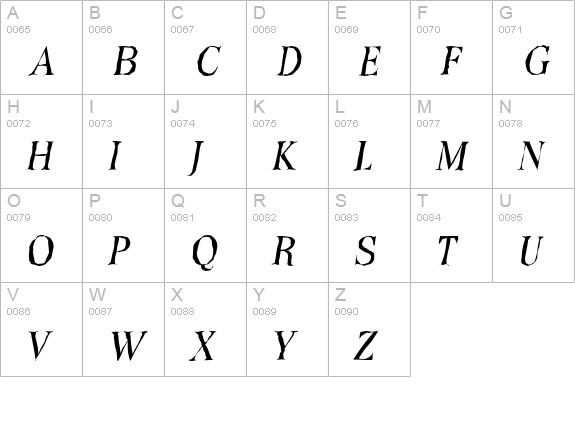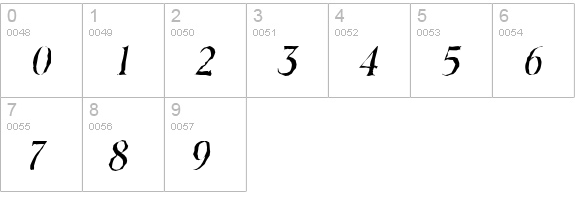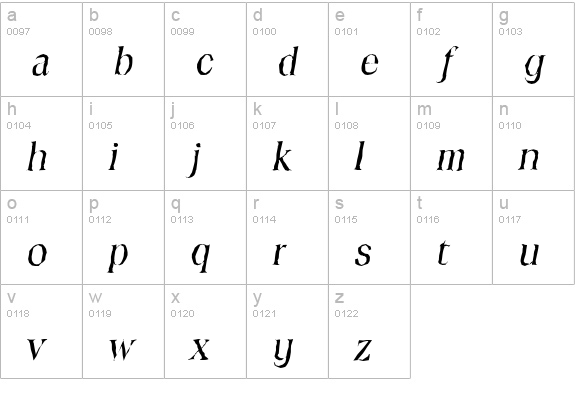
ToledoAntique-Italic is a distinctive, italic variant in the ToledoAntique typeface family \xE2\x80\x94 well suited to design and typography projects.
ToledoAntique-Italic font exudes timeless elegance and sophistication, making it the perfect choice for projects requiring a touch of vintage charm. Its graceful curves and delicate serifs capture the essence of antique craftsmanship, adding a sense of refinement to any design. The italic styling of ToledoAntique-Italic font brings a sense of dynamism and movement, creating a unique visual impact. Best of all, ToledoAntique-Italic font is available for free download at FontsMarket.com. This means you can easily access this exquisite typeface and incorporate its classic beauty into your projects without any cost. Whether you're working on invitations, branding materials, or editorial designs, ToledoAntique-Italic font is sure to elevate your creations with its distinctive flair. Download it today and add a touch of vintage sophistication to your designs.